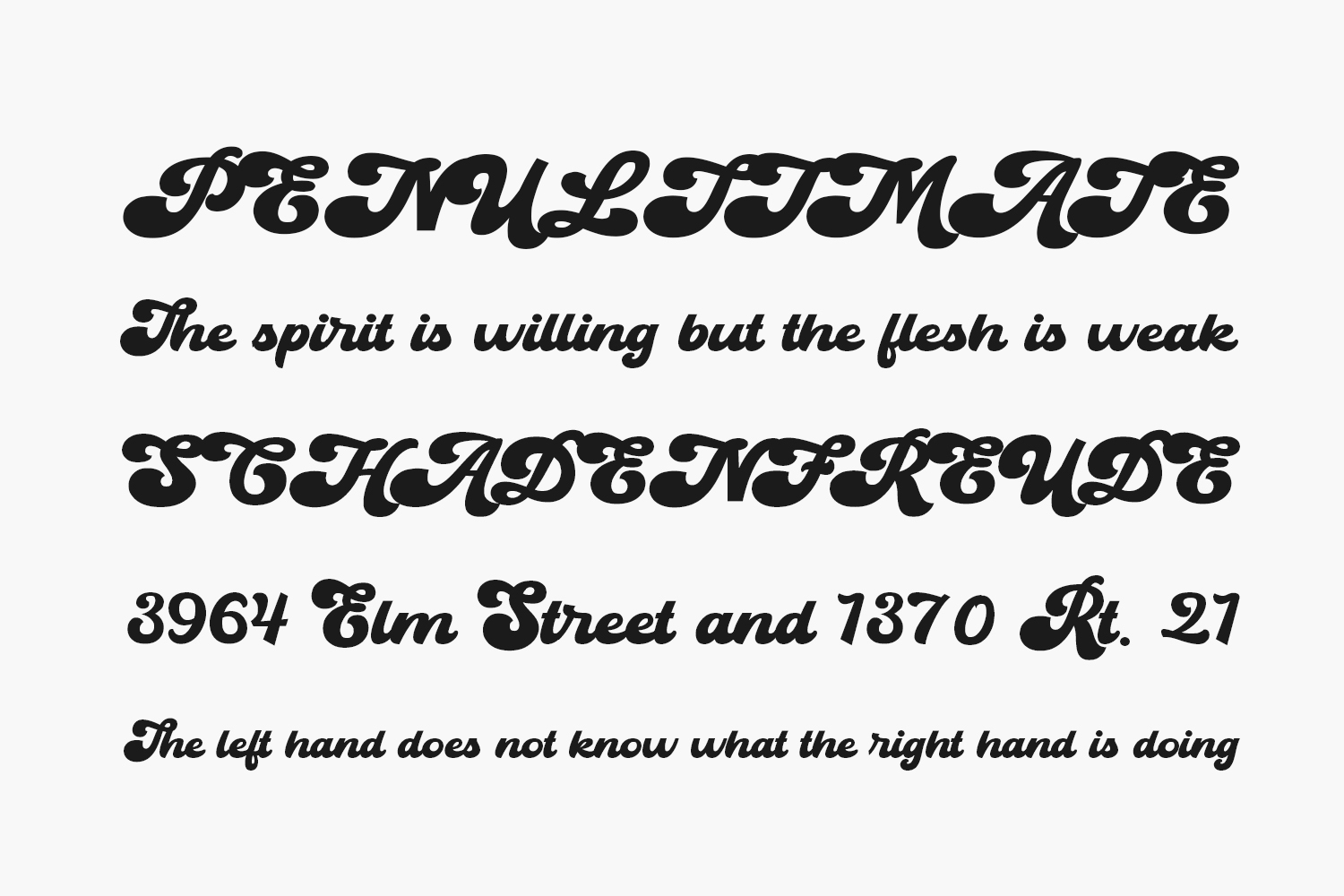
Mainstay Free Font is a bold and retro styled handwritten font. This font reads as strong, confident, and dynamic and can add tons of nostalgic character to your designs. Mainstay Free Font was designed by Ahwe Project and is free for personal use only. Please purchase the full version for commercial use.